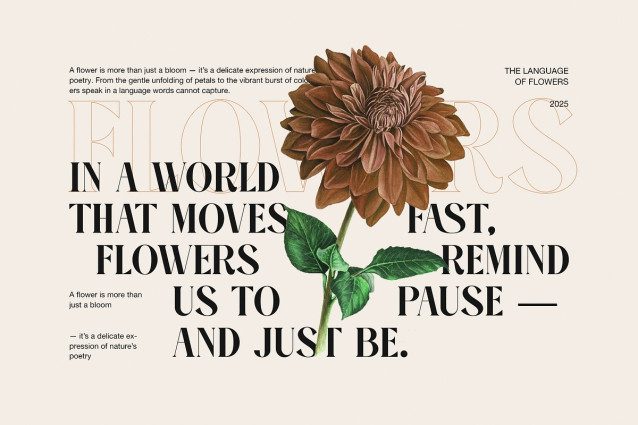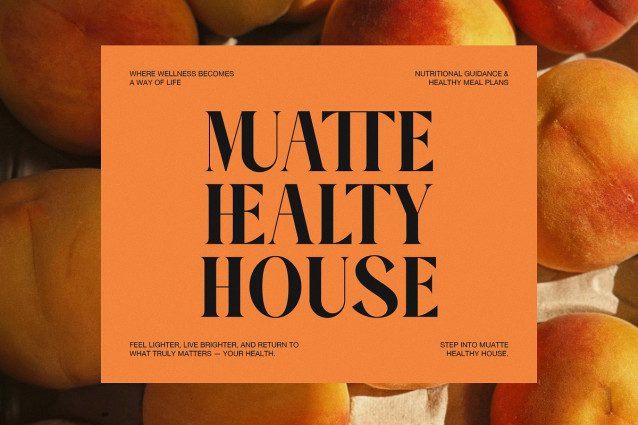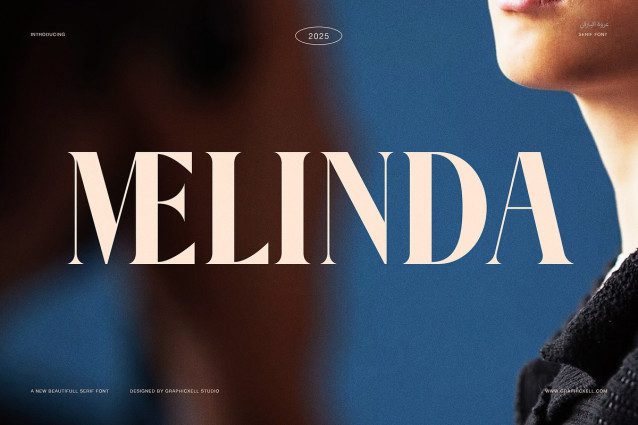
Melinda Serif Font
Melinda Serif Font is a soft and stylish serif typeface created to add charm and balance to any design. It blends smooth curves with clean lines, giving each letter a calm and graceful look. Because of its modern yet classic style, Melinda is ideal for logos, weddings, magazines, and luxury packaging.
Every letter in Melinda flows naturally. The gentle contrast between strokes makes the design elegant but easy to read. In addition, the soft edges and fine serifs bring warmth and class. As a result, your words appear polished and professional while staying simple and clear.
Melinda includes uppercase and lowercase letters, numbers, punctuation, ligatures, and alternates. It also supports multiple languages, making it perfect for global projects. Therefore, you can design freely for different audiences while keeping a consistent and refined tone.